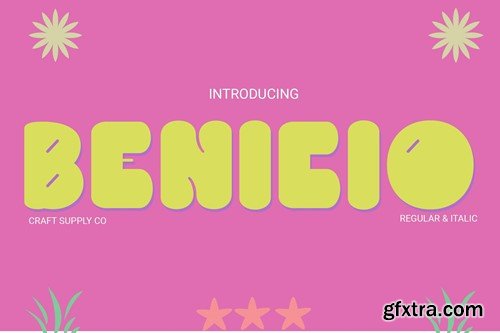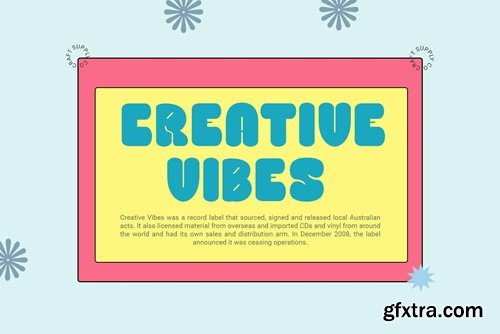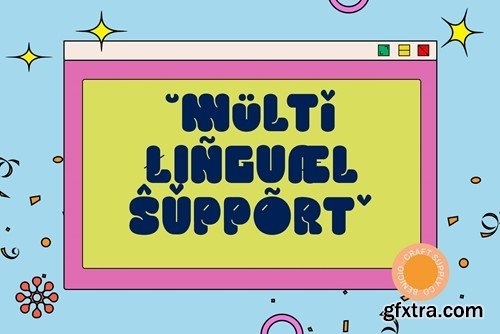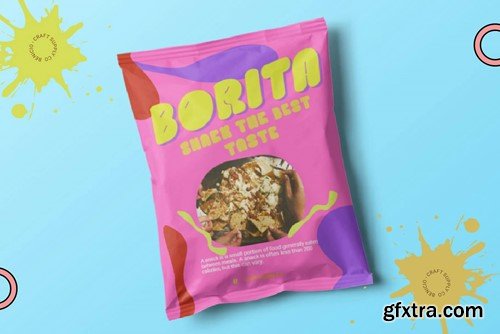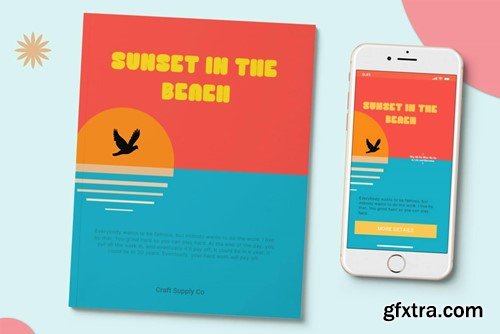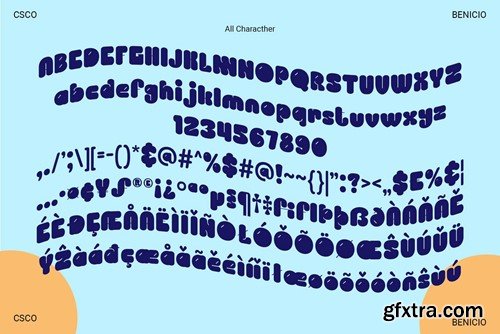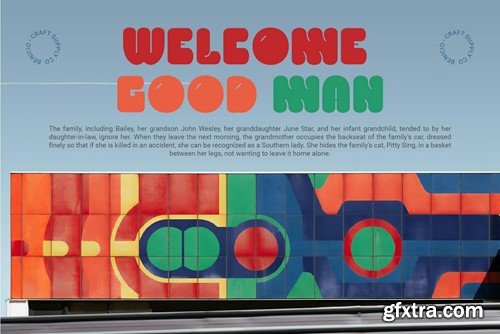
Benicio – Playful Font P4QABFJ
Benicio Font: Embodying Playfulness in Typography Vibrant Boogie Shape Benicio delights with its lively and dynamic boogie-shaped characters, radiating cheerfulness and joy in every stroke. Expressive and Playful Infused with a spirit of playfulness, Benicio’s design invites creativity and adds a playful touch to any display project. Perfect for Display Projects Tailored for display purposes, This font excels in catching the eye and conveying a sense of fun in various design contexts. Versatility in Application From branding to packaging and everything in between, This font offers versatility, making it a go-to choice for designers seeking a playful yet impactful font. Playfulness Meets Typography This font stands out as a font that embodies the essence of joy and playfulness. With its vibrant boogie shape and expressive design, it adds a delightful touch to any display project, ensuring that your message is conveyed with energy and flair. Step into the world of Benicio and let your creativity soar with its playful charm. What you get : Features : If you have any inquiries or need assistance, please feel free to contact us. We appreciate your support in enhancing your creative projects! Best regards, Craft Supply Co.